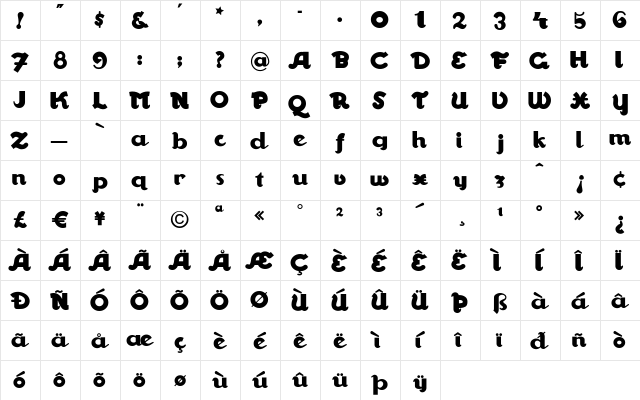
WalrusGumbo Regular
Design Context for WalrusGumbo Typeface
WalrusGumbo is a composed and adaptable typeface that performs quietly and consistently across a wide range of design contexts.